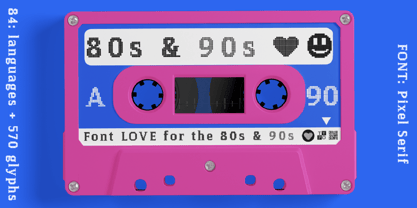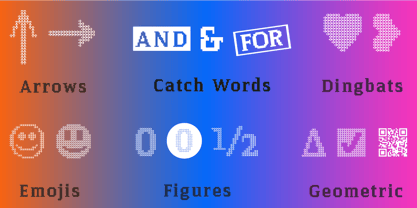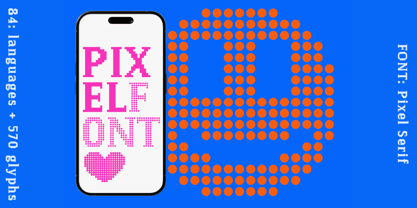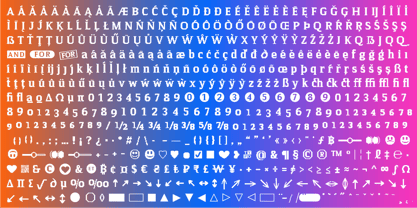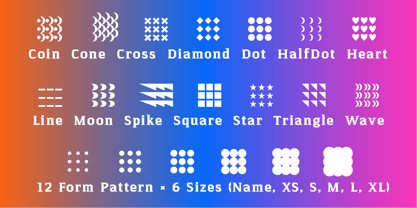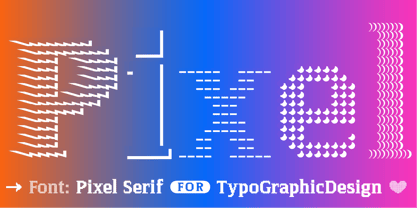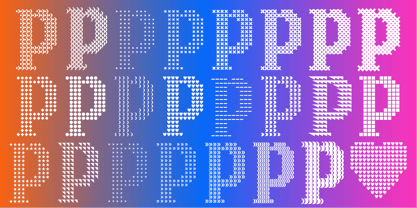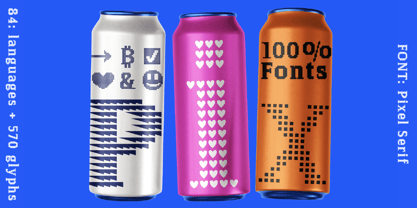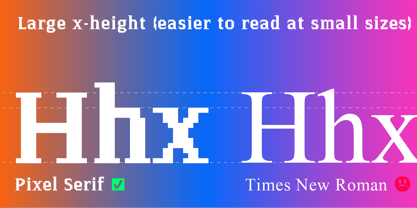
The typeface Pixel Serif is designed as a flexible system of modular geometric shaps from 2025–2026 for the font foundry Typo Graphic Design by the type designer Manuel Viergutz.
75 font-styles (Coin, Cone, Cross, Diamond, Dot, HDot, Heart, Line, Moon, Spike, Square, Star, Triangle, Wave (12+2 Form Pattern × 6 Sizes: Name, XS, S, M, L, XL)) with 570 glyphs (Adobe Latin 3) for 84 languages incl. decorative extras like icons, arrows, catch words, dingbats, emojis, symbols, geometric shapes (type the word #LOVE for ❤ as OT-Feat) and stylistic alternates (2 stylistic sets). 23 OT features.
For use in logos, packaging for drinks & food, magazines, posters, advertisement plus as webfont for decorative headlines. The font works best for display size.
■ Font Name: Pixel Serif
■ Font Styles: 75 font weights Coin, Cone, Cross, Diamond, Dot, HDot, Heart, Line, Moon, Spike, Square, Star, Triangle, Wave (12+2 Form Pattern × 6 Sizes: Name, XS, S, M, L, XL))
■ Font Category: Pixel Serif for headline size
■ Glyph Set: 570 glyphs (Adobe Latin 3 incl. decorative extras)
■ Specials: Capital Letter Sharp S (German Versal Eszett U+1E9E) ẞ, Catchwords like FOR, Emojis like Smiley ☺ ☻, Symbols like Heart ♥︎, arrows ➡︎, Geometric Shapes ▲ ⚫️ , Variable Font
■ Type Designer: Manuel Viergutz